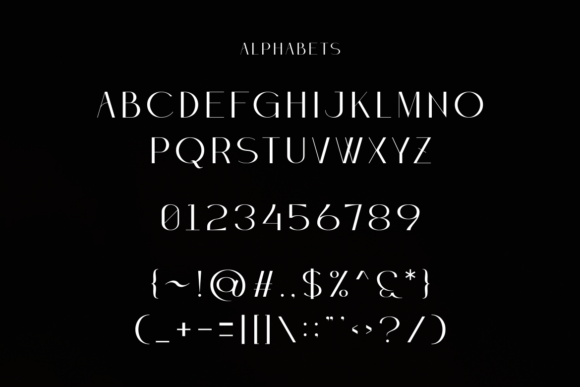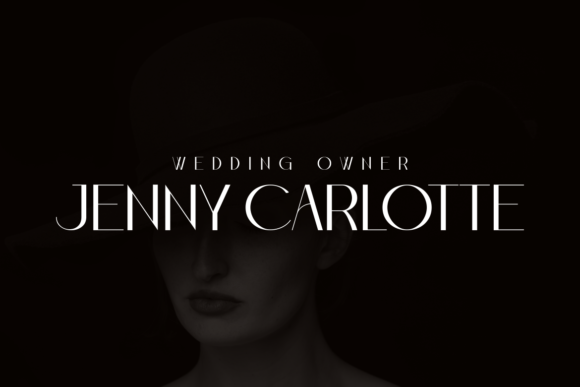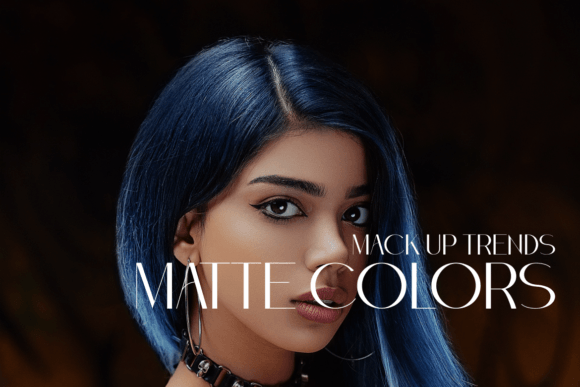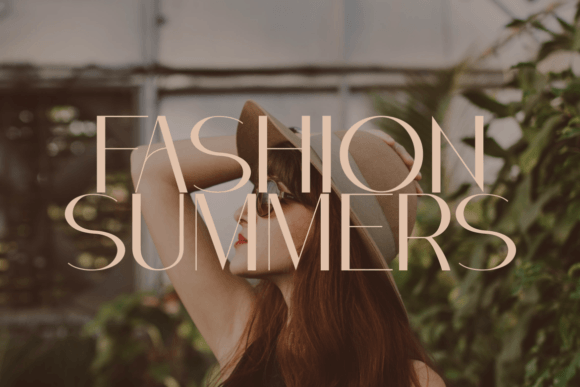
Introducing Chatone Font: Elevate Your Design with Elegance and Legibility
In the realm of typography, the right font can significantly impact the aesthetic and readability of your design. For those seeking a blend of luxury, comfort, and legibility, Chatone Font emerges as an exceptional choice. This sans-serif font is meticulously crafted to provide a visually pleasing and comfortable reading experience, making it an ideal selection for a wide array of design projects, particularly those in the beauty and makeup industry.
The Essence of Chatone Font
Chatone Font is distinguished by its unique characteristics that set it apart from other sans-serif fonts. Its design focuses on delivering a clear and legible reading experience without compromising on style. The characters in Chatone Font are designed to exude a comforting touch, which is perfectly balanced with a luxurious charm. This balance makes it an excellent choice for brands and designers looking to convey a sense of high-end quality and approachability.
Ideal for Beauty and Makeup Brands
For women who appreciate makeup and seek a touch of luxury in their choices, Chatone Font is highly recommended. The font’s luxurious charm is particularly suited for beauty products, offering a sophisticated and elegant feel that can elevate brand identity and packaging design. Whether you’re designing a logo, product labels, or marketing materials for a beauty brand, Chatone Font can help you achieve a look that is both luxurious and inviting.
Key Features of Chatone Font
- Enhanced Legibility: The sans-serif design of Chatone Font ensures clarity and legibility across various platforms and sizes, making it perfect for digital and print media.
- Comforting and Luxurious: The font strikes a perfect balance between being comforting to read and embodying a luxurious aesthetic, ideal for high-end beauty brands.
- Versatility: Chatone Font can be used across a range of design projects, from branding and advertising to packaging and digital content.
- Women-Centric Design: With its special appeal to women who appreciate luxury and elegance in makeup and beauty products, Chatone Font is a valuable asset for designers catering to this demographic.
Tips for Using Chatone Font in Your Designs
To maximize the impact of Chatone Font in your designs, consider the following tips:
- Pair with Complementary Fonts: For headings and subheadings, Chatone Font can be paired with other fonts that complement its luxurious and elegant feel, enhancing the visual hierarchy of your design.
- Adjust for Context: Experiment with different sizes and weights of Chatone Font to ensure optimal legibility and aesthetic appeal in various contexts, from digital interfaces to print materials.
- Utilize for Brand Consistency: For beauty brands aiming for a luxurious image, using Chatone Font consistently across all design materials can significantly reinforce brand identity.
Chatone Font stands out as a versatile and elegant sans-serif font, perfectly suited for designers and brands in the beauty and makeup industry seeking to convey luxury, comfort, and legibility. Its unique blend of approachability and high-end charm makes it an invaluable tool for creating visually appealing and effective designs. Whether you’re crafting a brand identity, designing product packaging, or creating digital content, Chatone Font is an excellent choice for elevating your design to new heights of elegance and readability.